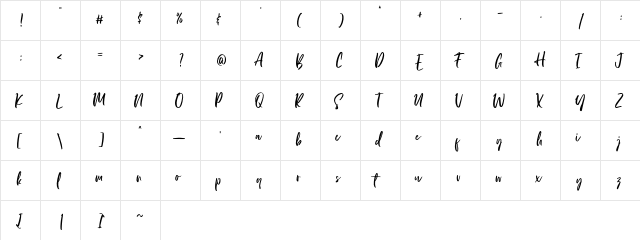
Lorde Soon-Personal Use Regular
Design Context for Lorde Soon-Personal Use Typeface
Lorde Soon-Personal Use is a composed and adaptable typeface that performs quietly and consistently across a wide range of design contexts.